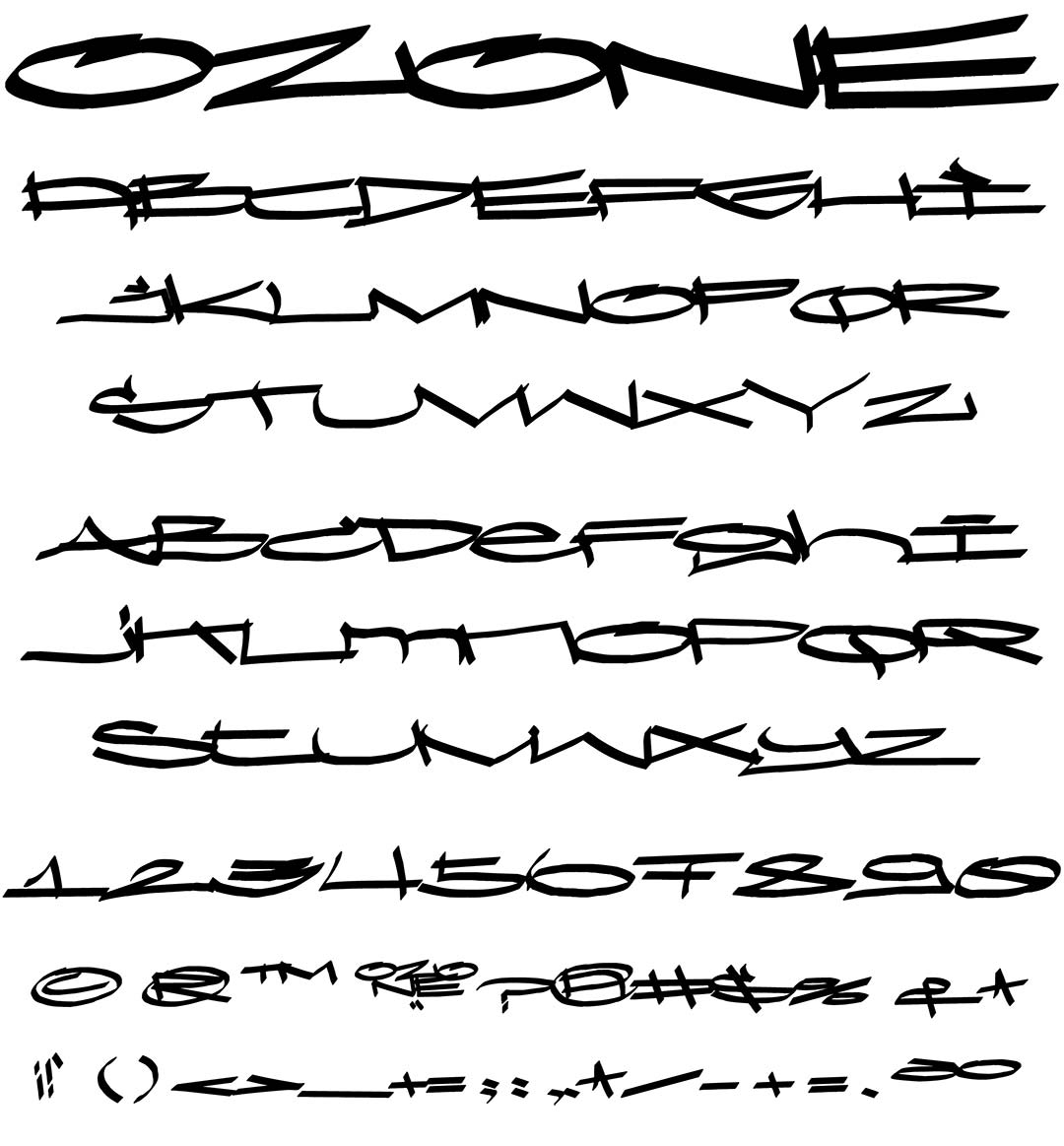
Ozone
Ozone Graffiti Alphabet
Ozone Graffiti Font Family
Ozone is a thin, extended tag style with very wide letters. The style is basic but you can tell its a tagging style right away. The chisel tip strokes are clean & consistent & the font has a sizeable character set.